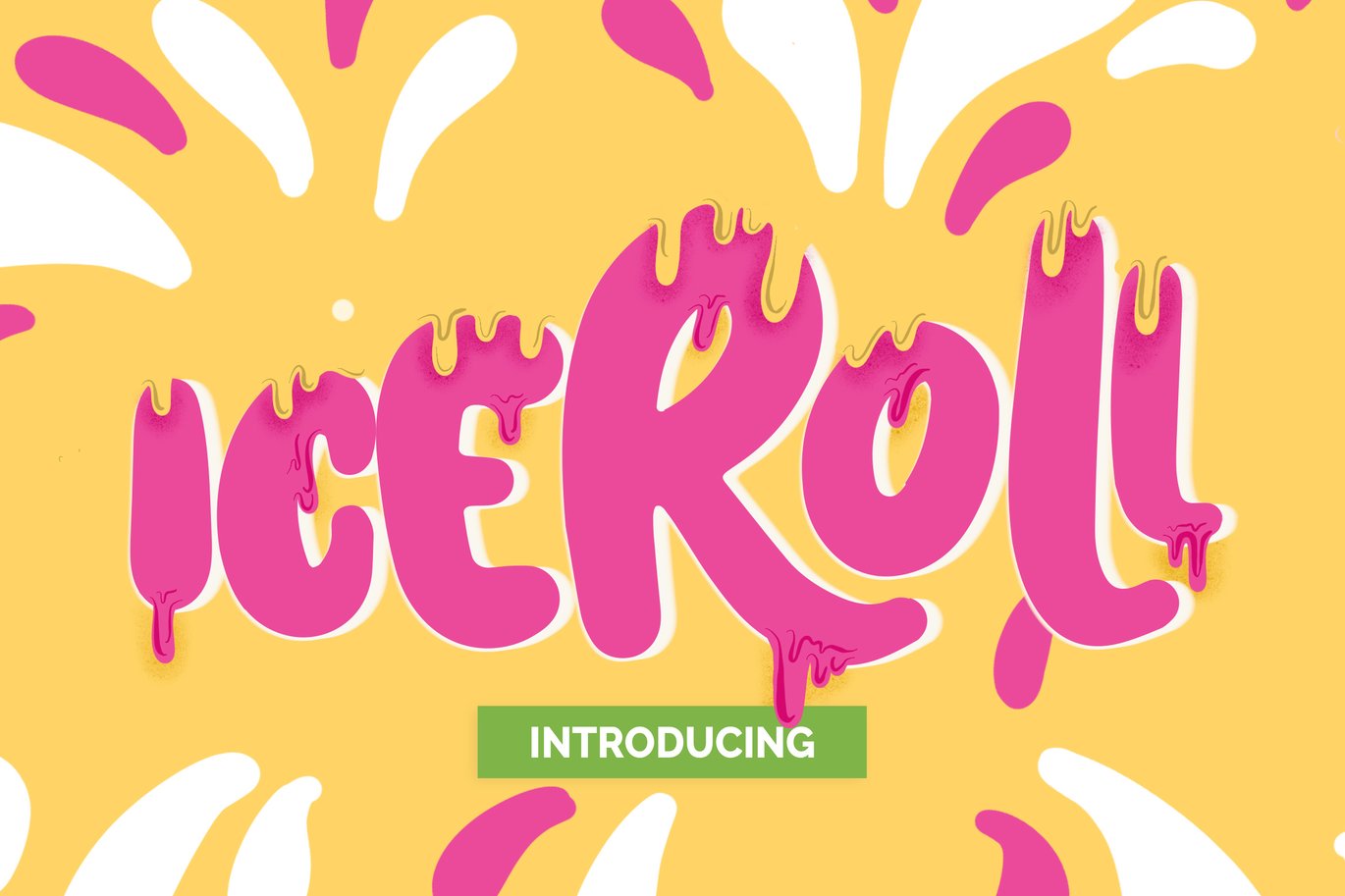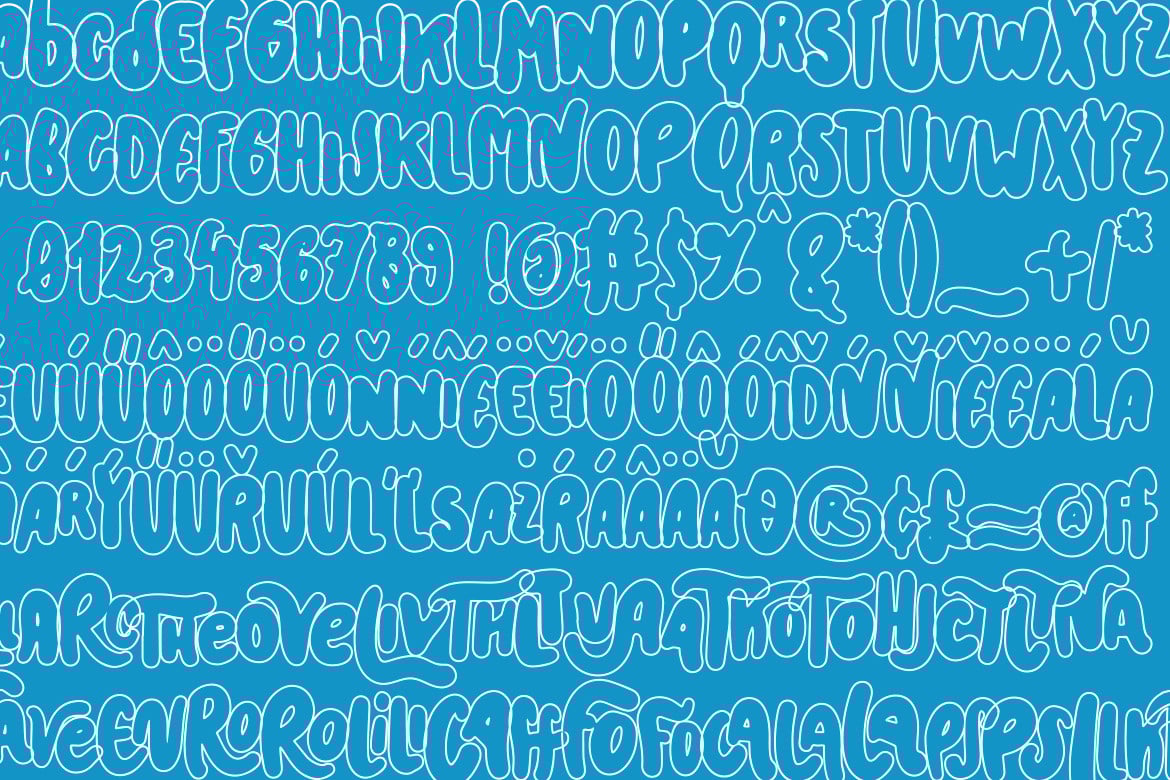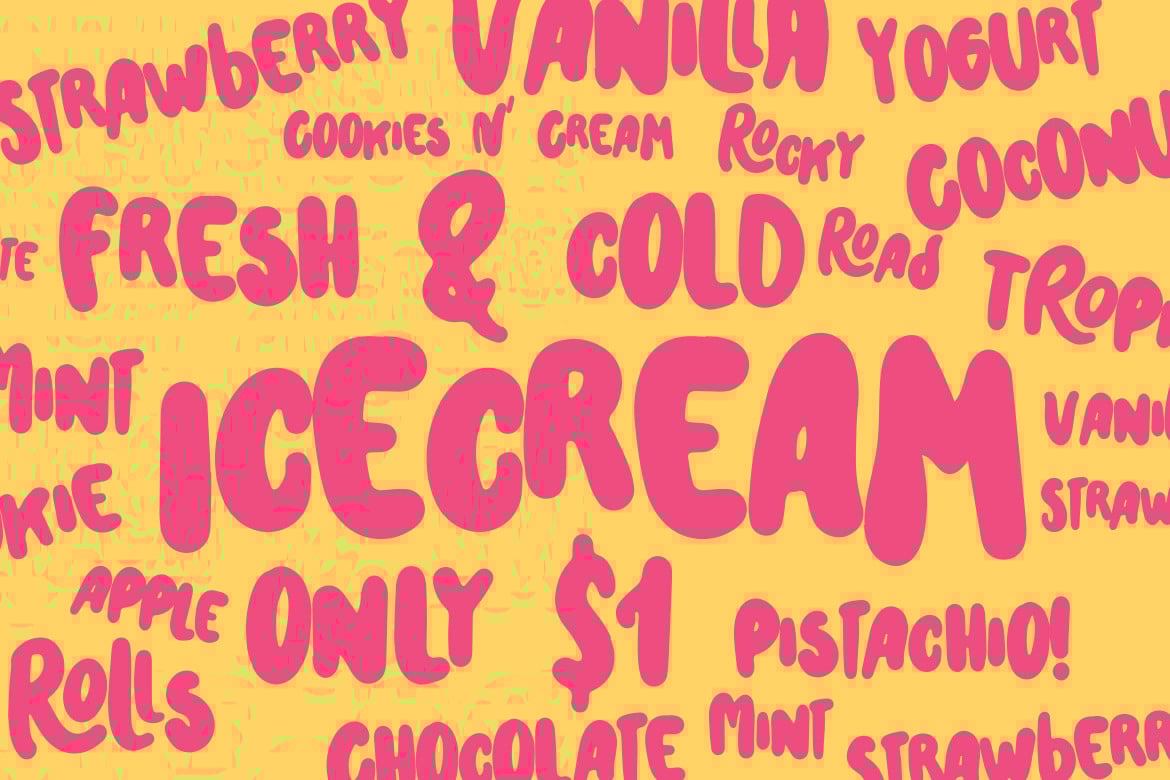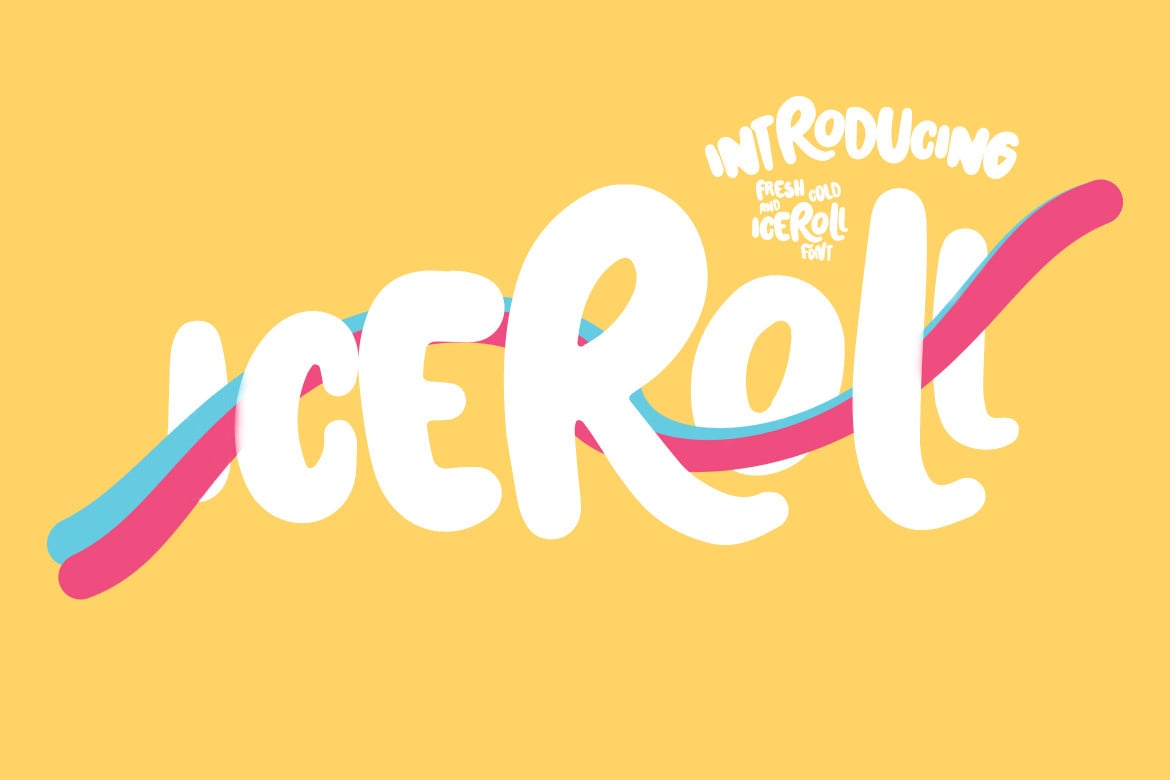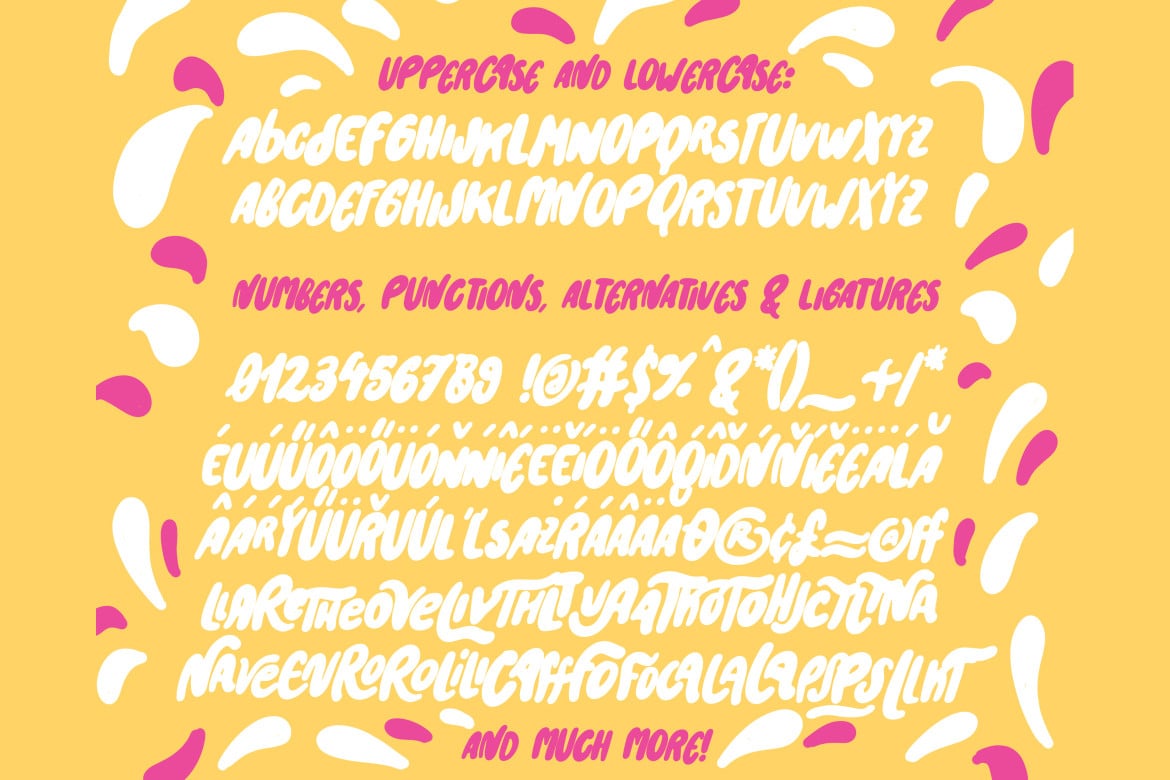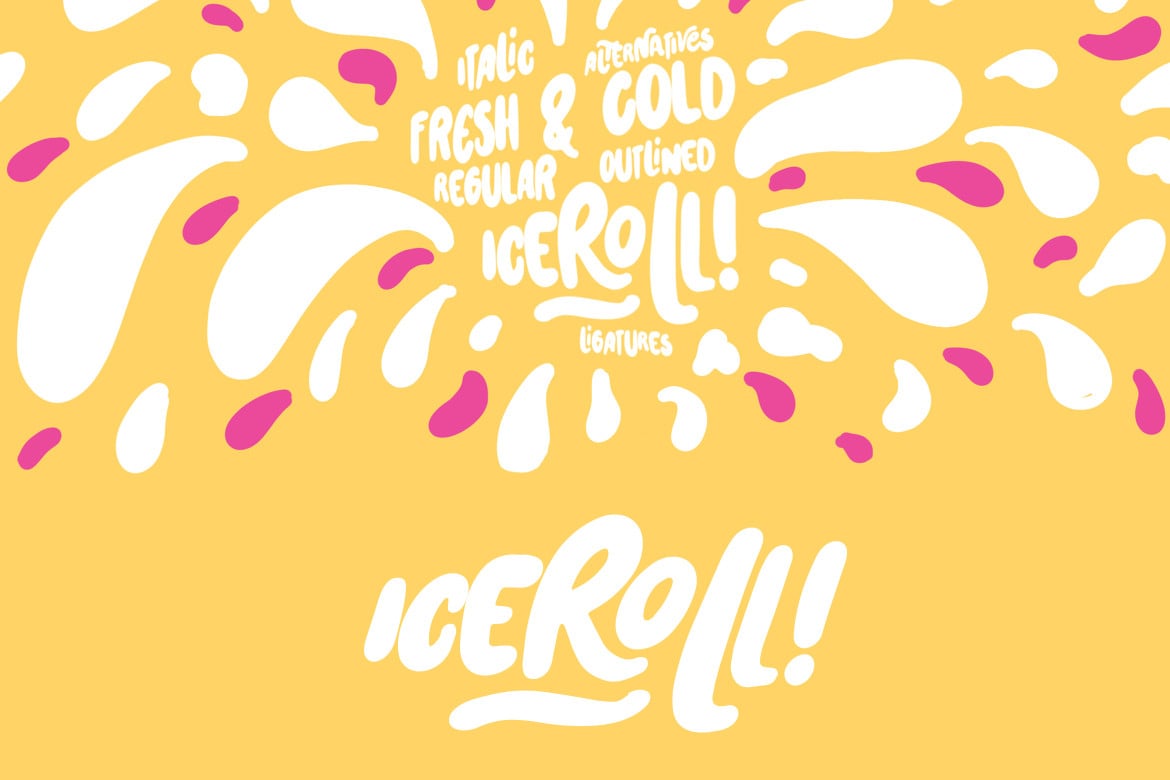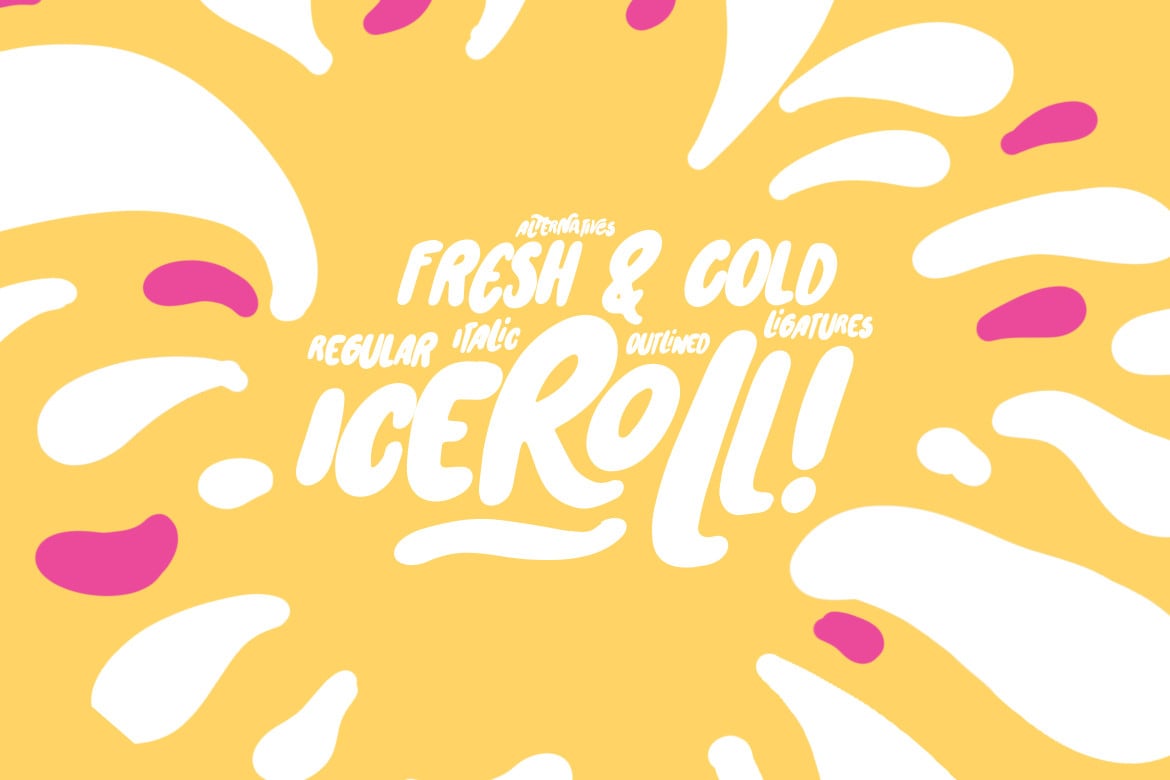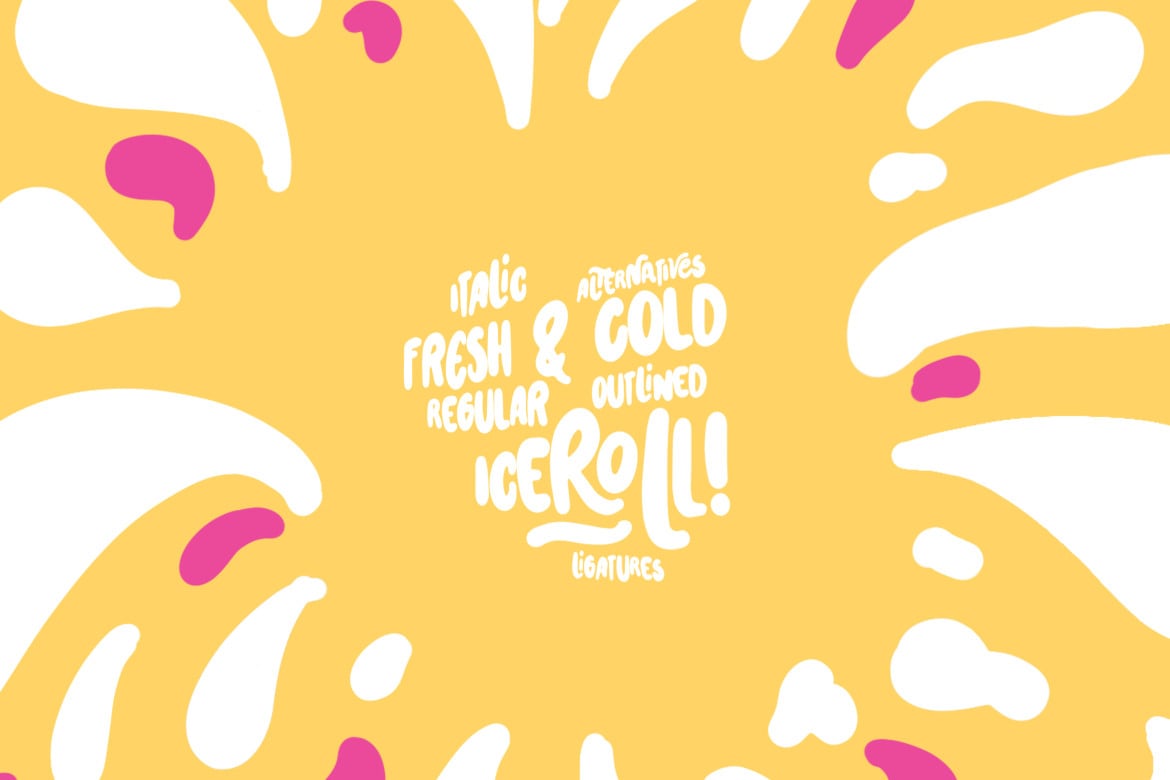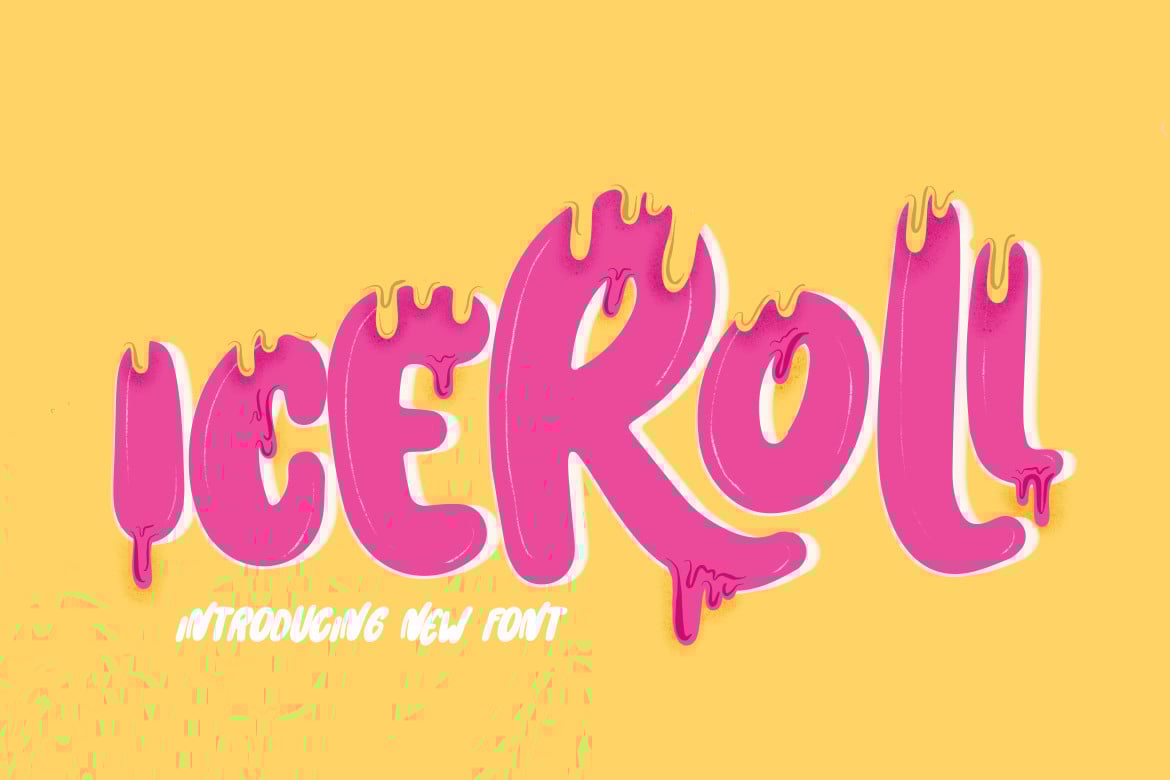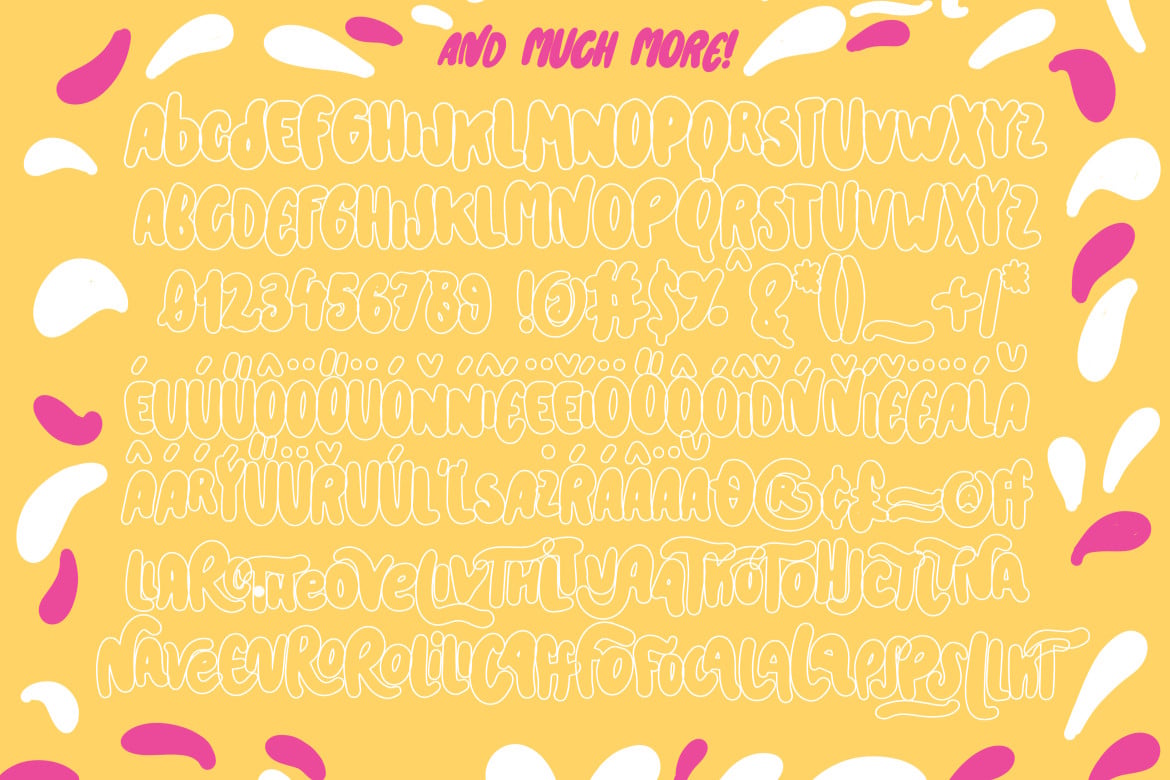
Iceroll Font
The Iceroll font pack makes it easy to create fun designs quickly! The pack contains a fresh and playful font in 3 styles. Characteristic of this fonts will act to create an ambience of fun.
The font can be used for many purposes but looks great when put on signs, shirts or cards. Also, it works perfect on fresh summer theme designs.
Iceroll Regular – full set of uppercase and lowercase letters, international support, punctuation, and a wide variety of extra characters.
Iceroll Italic – full set of uppercase and lowercase letters, international support, punctuation, and a wide variety of extra characters.
Iceroll Outlined – full set of uppercase and lowercase letters, international support, punctuation, and a wide variety of extra characters.